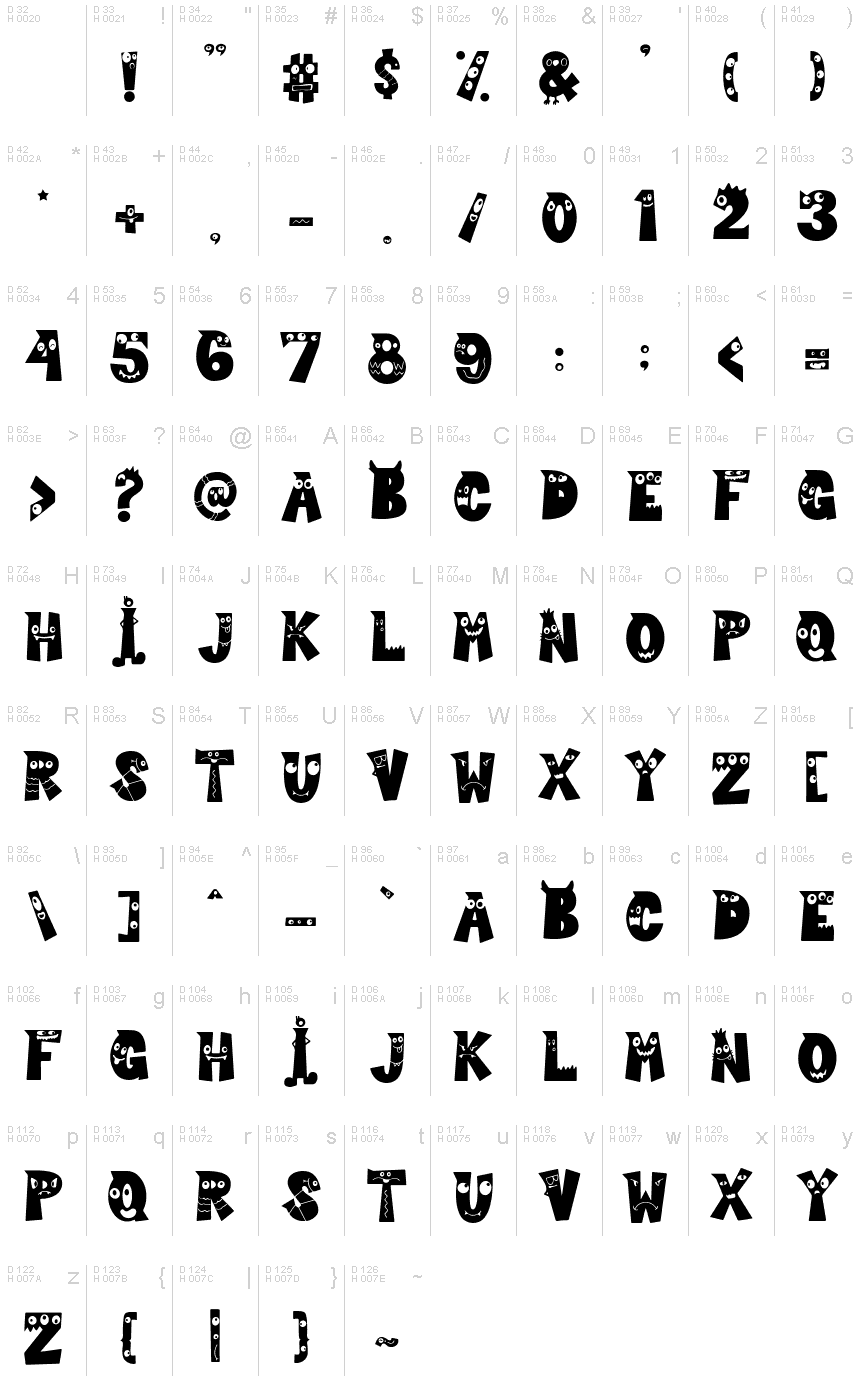
This enchanting font will turn any creative idea into a true standout.
Perfect fit for all of your logos, branding, social media, etc.
Get creative with its unique playfulness, and use it to brighten up any crafting project!
Cute Monster